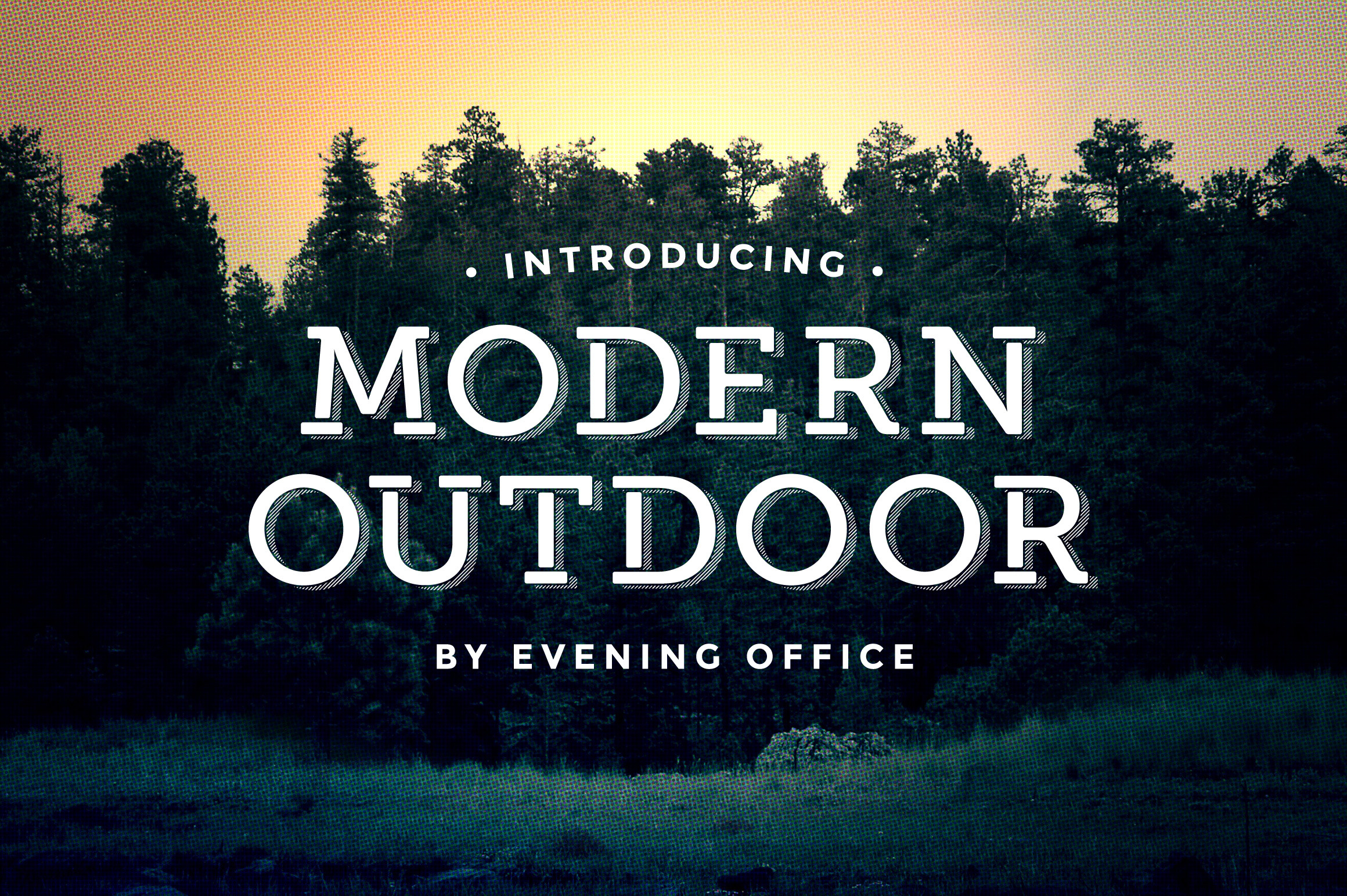
Modern Outdoor | Font
Modern Outdoor is best used for signage, posters, wall graphics, or any project that requires large type to command your audience's attention.
Decidedly campy, this is an all caps display font sure to make an impression.